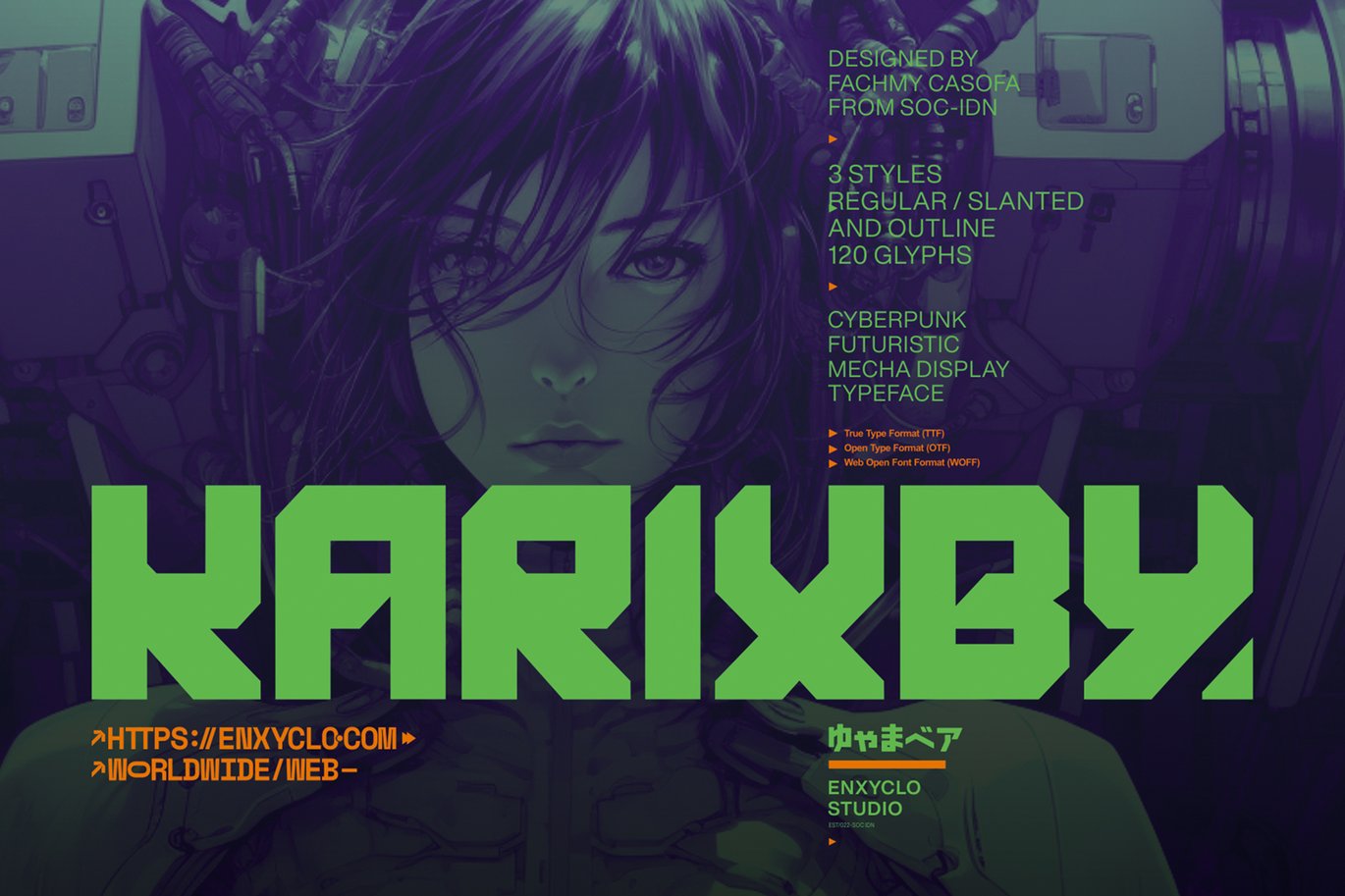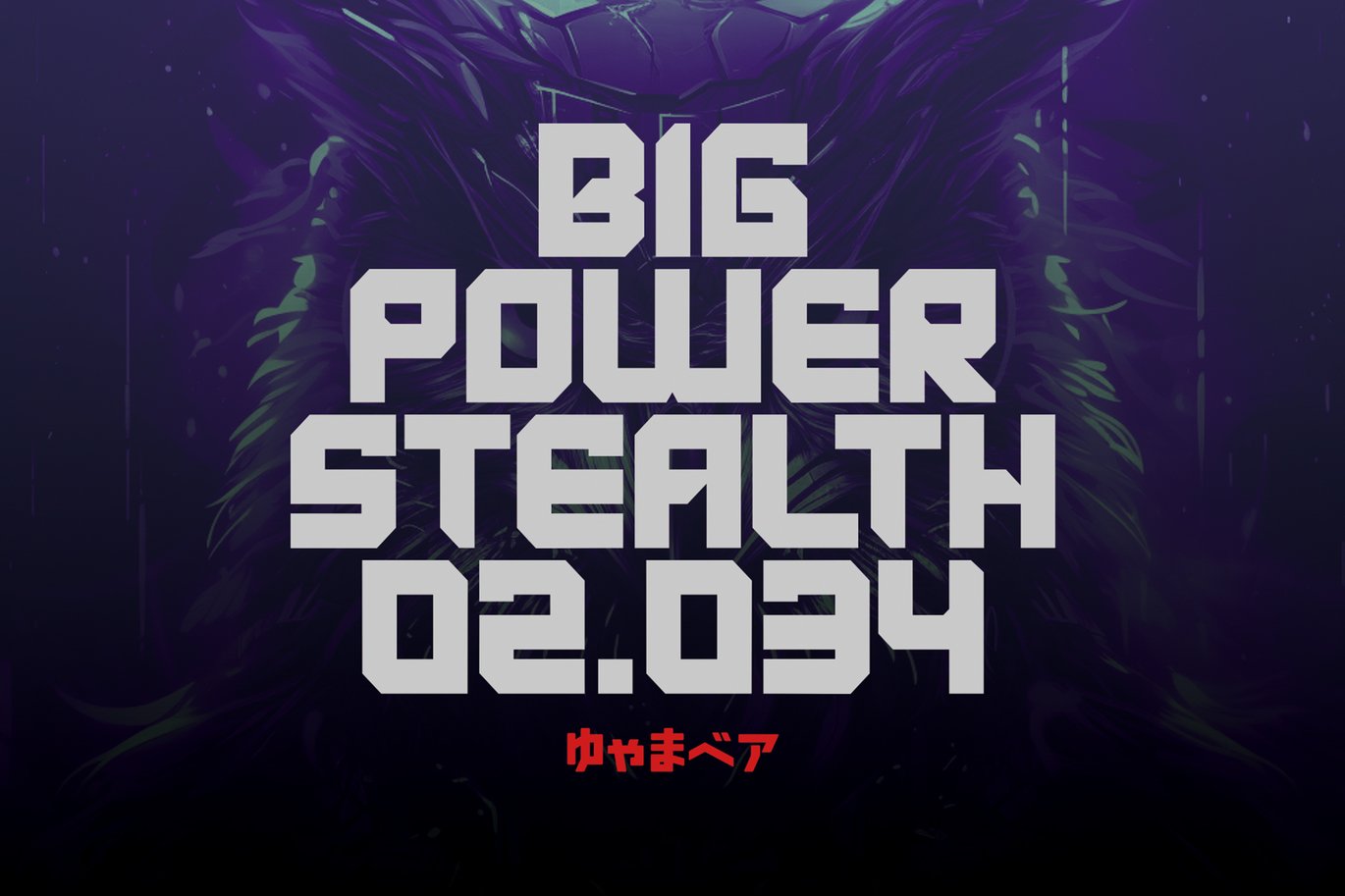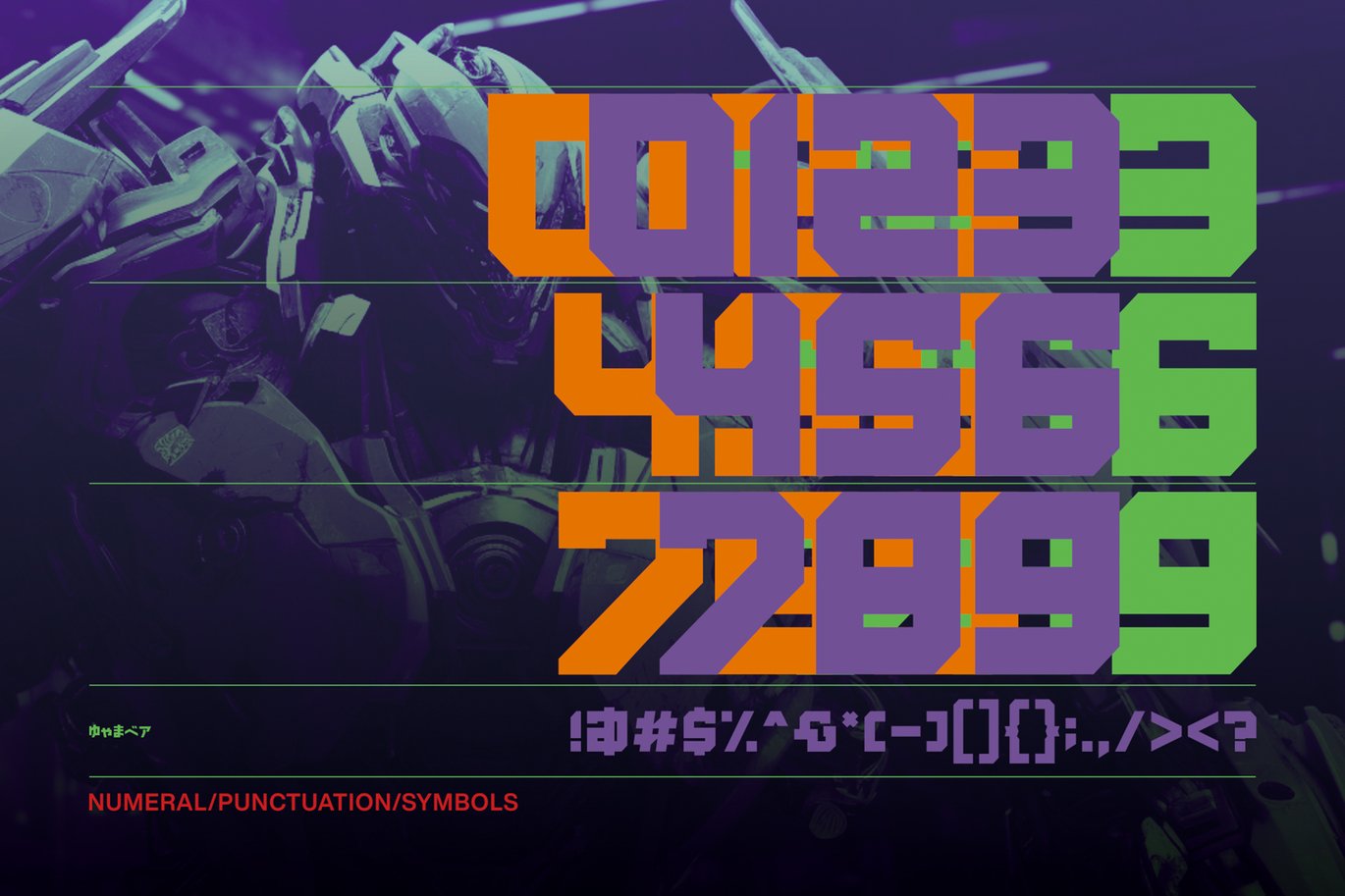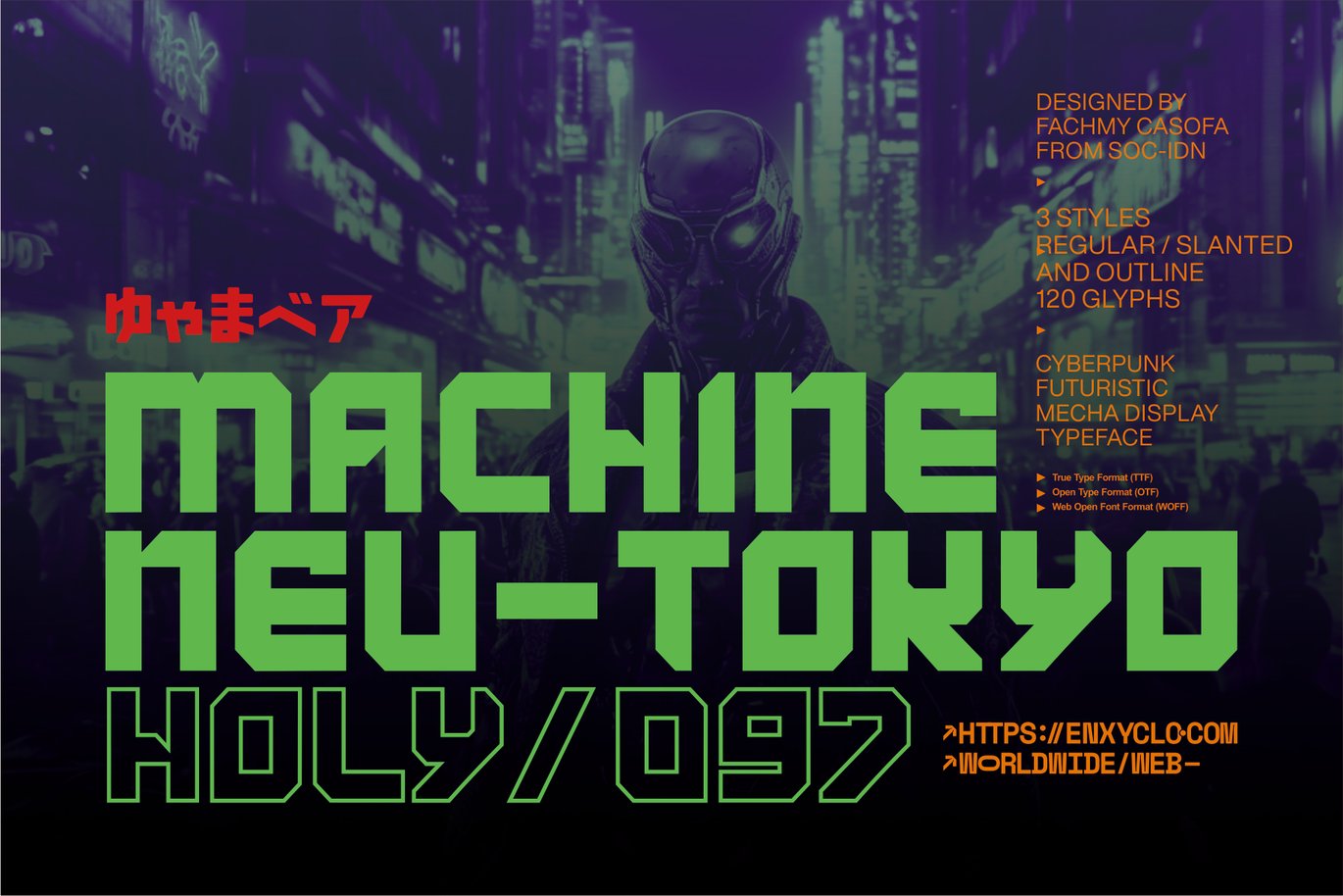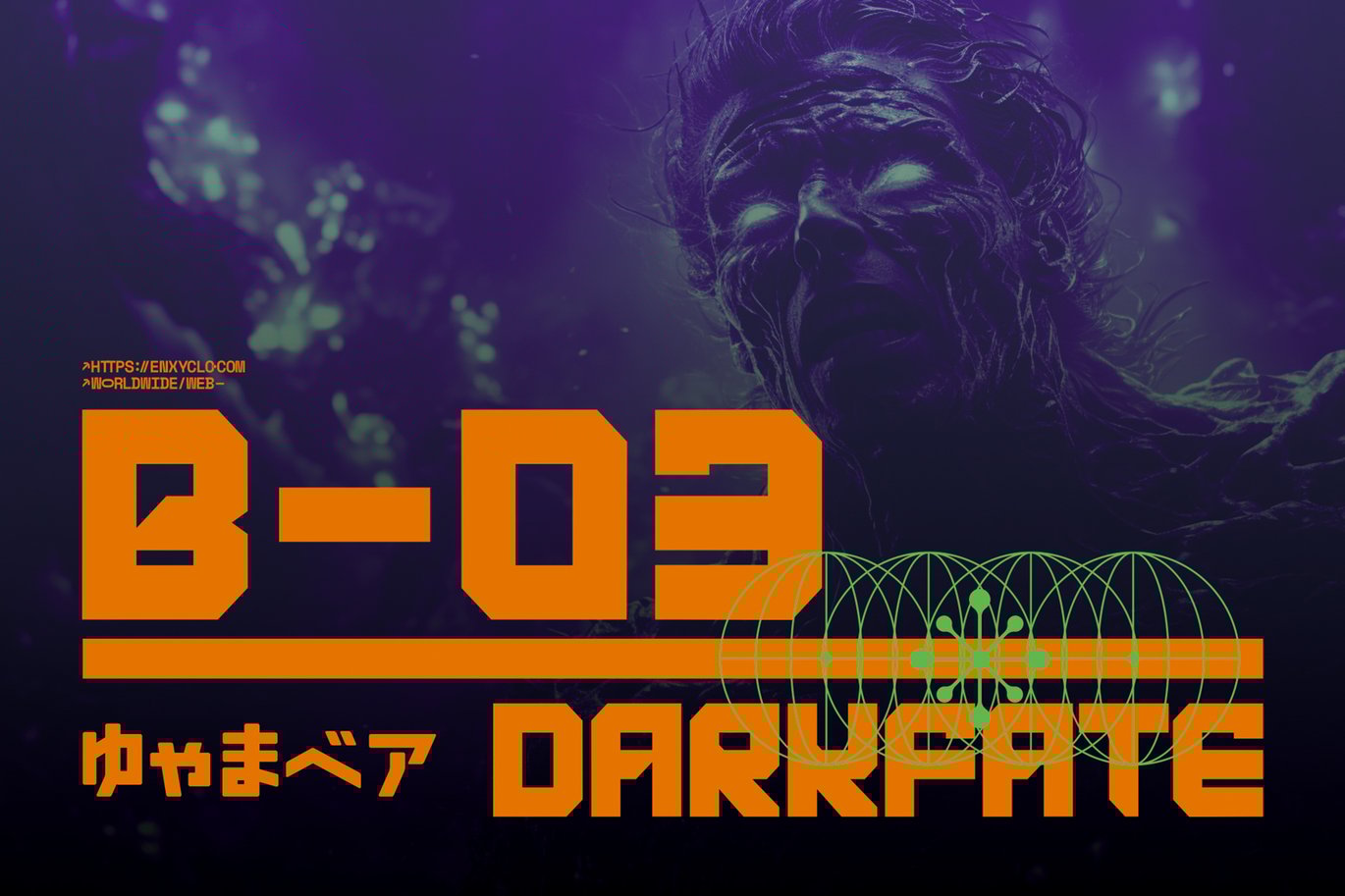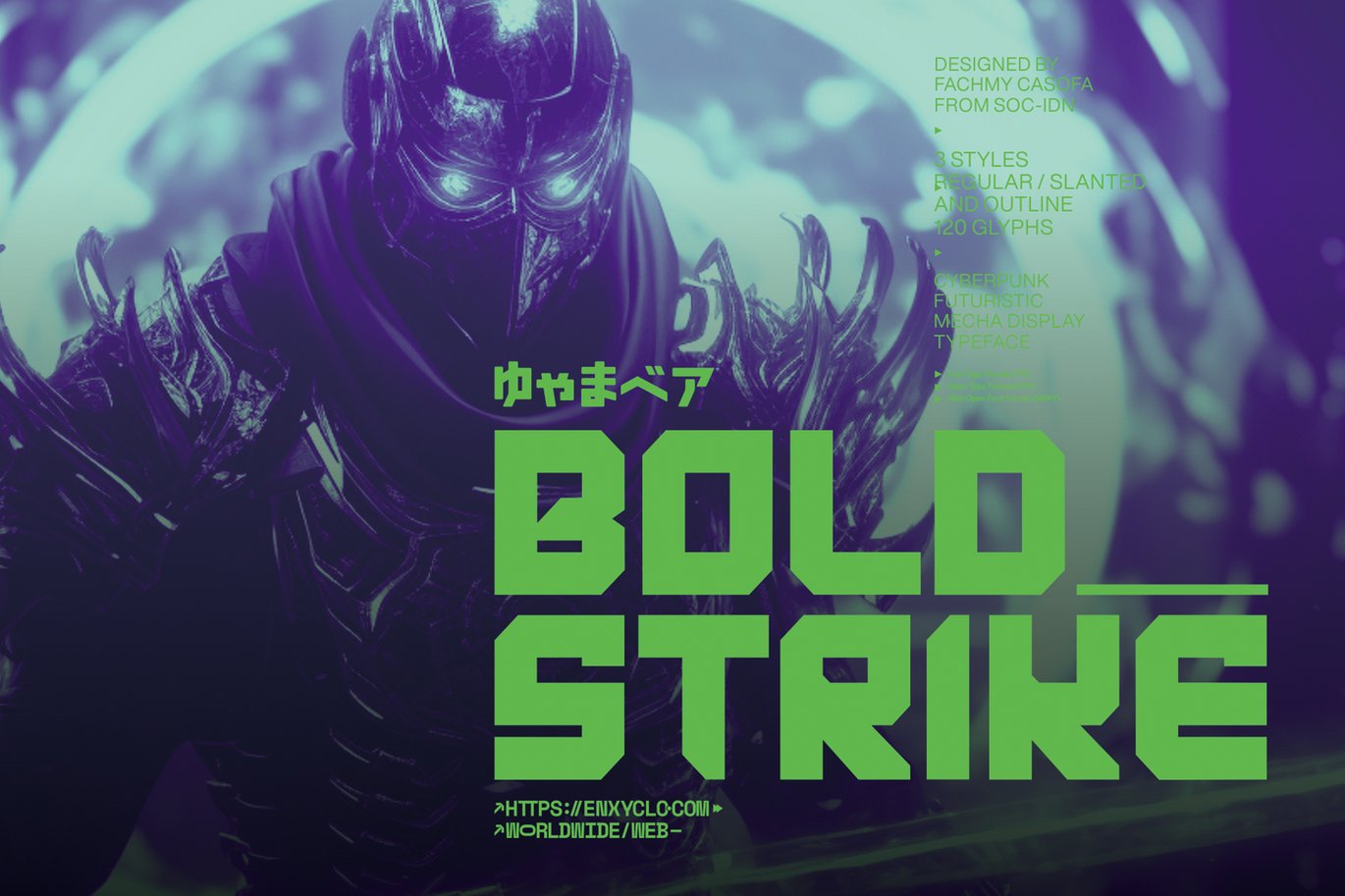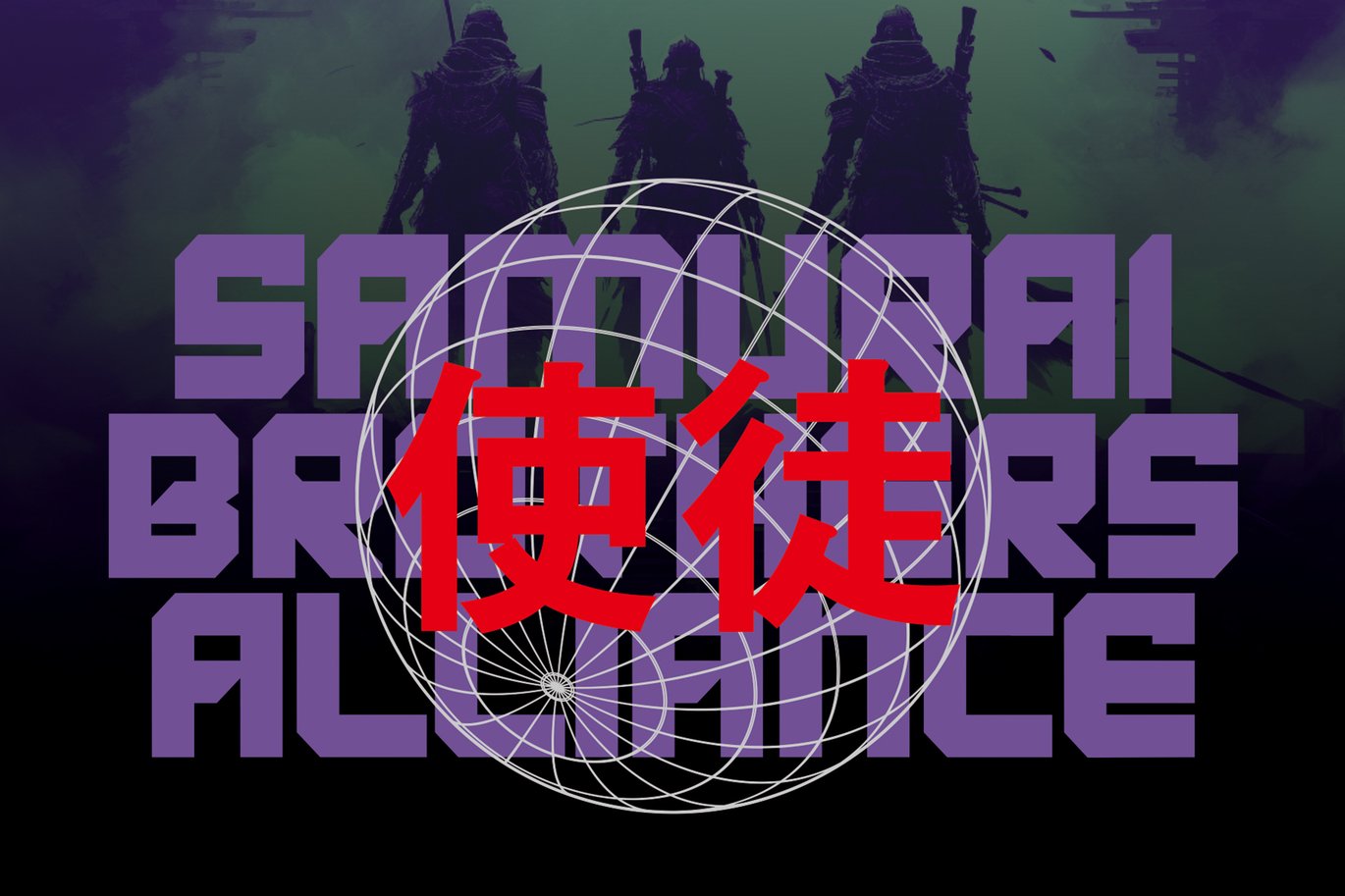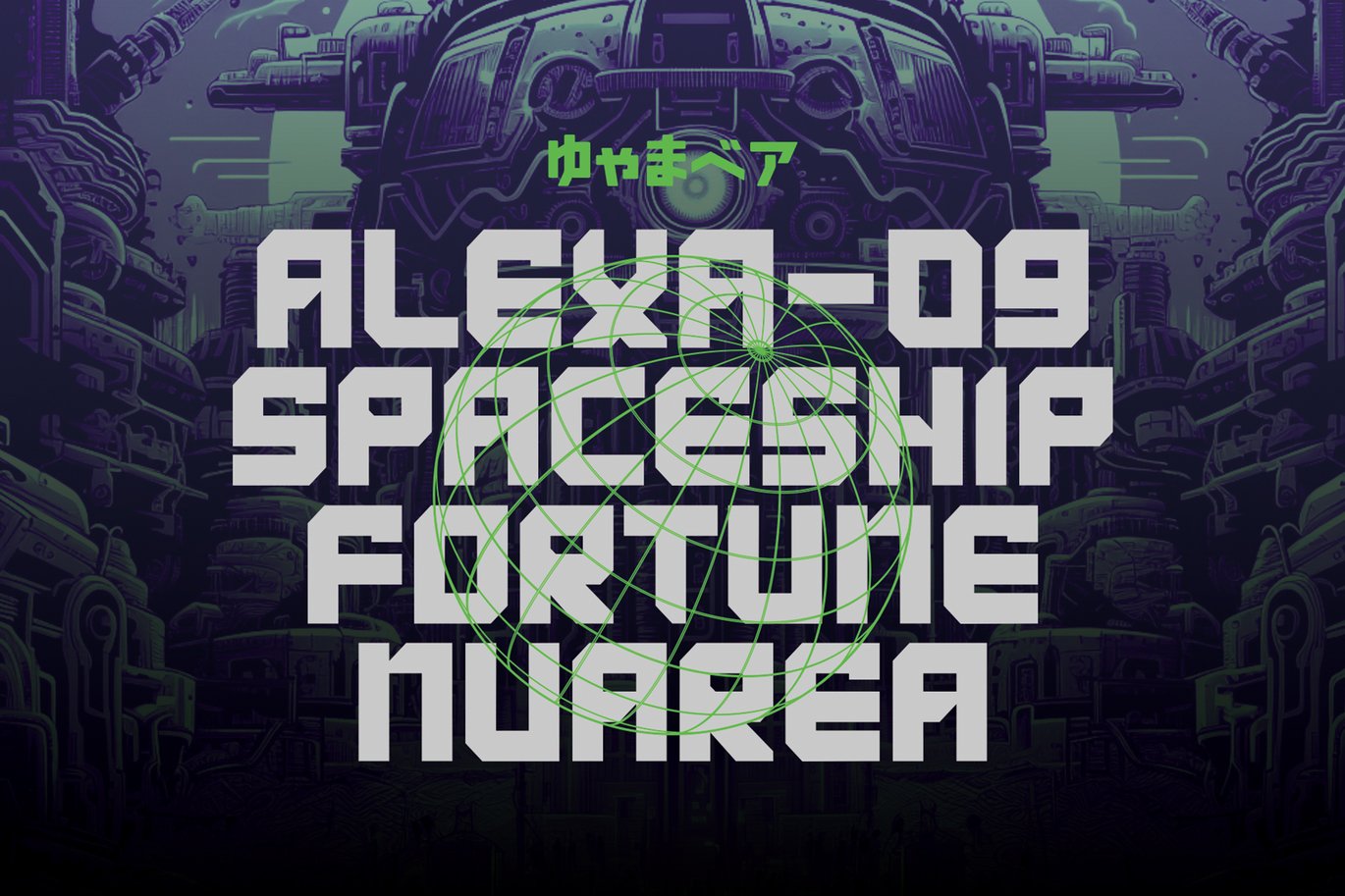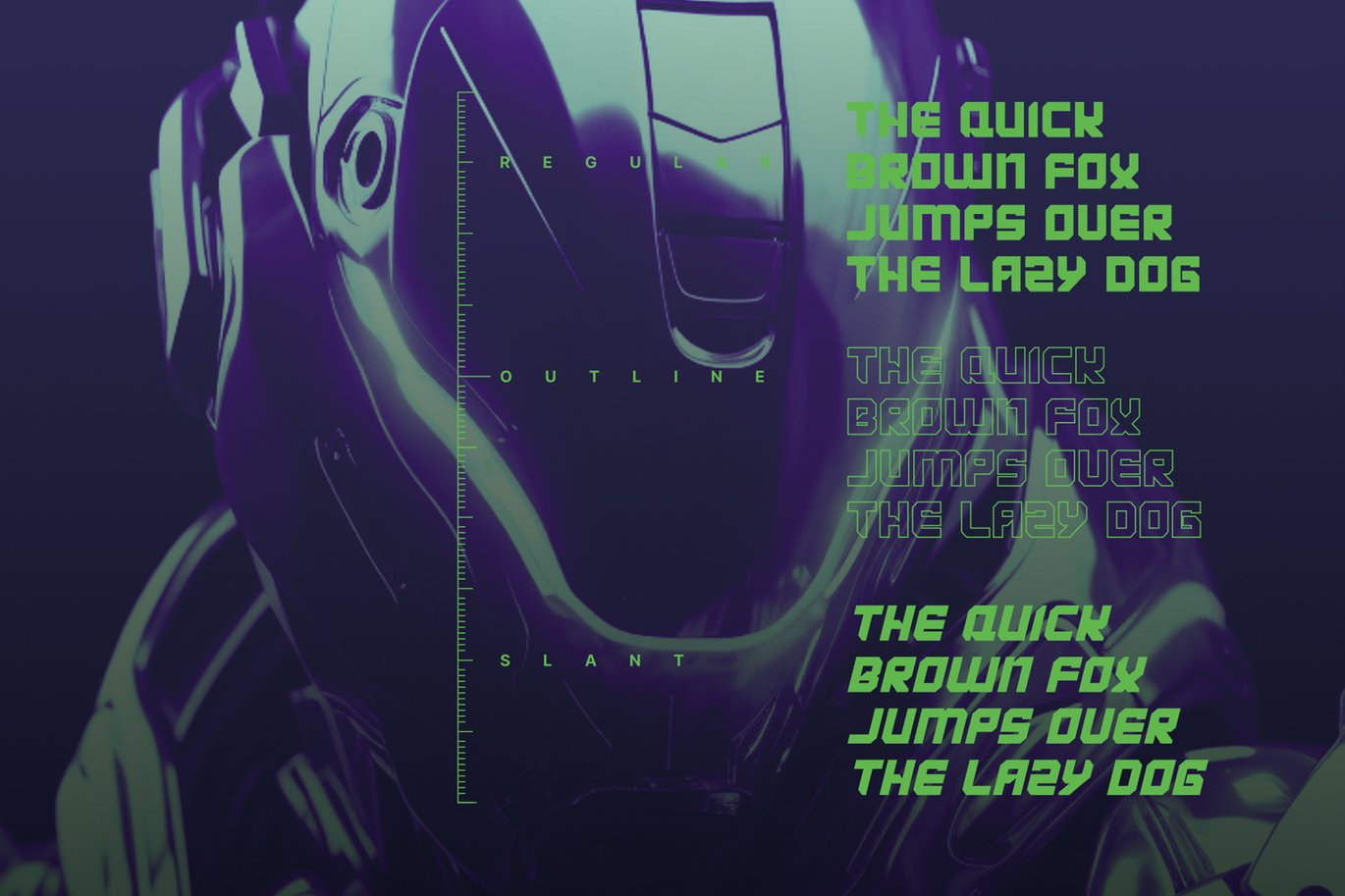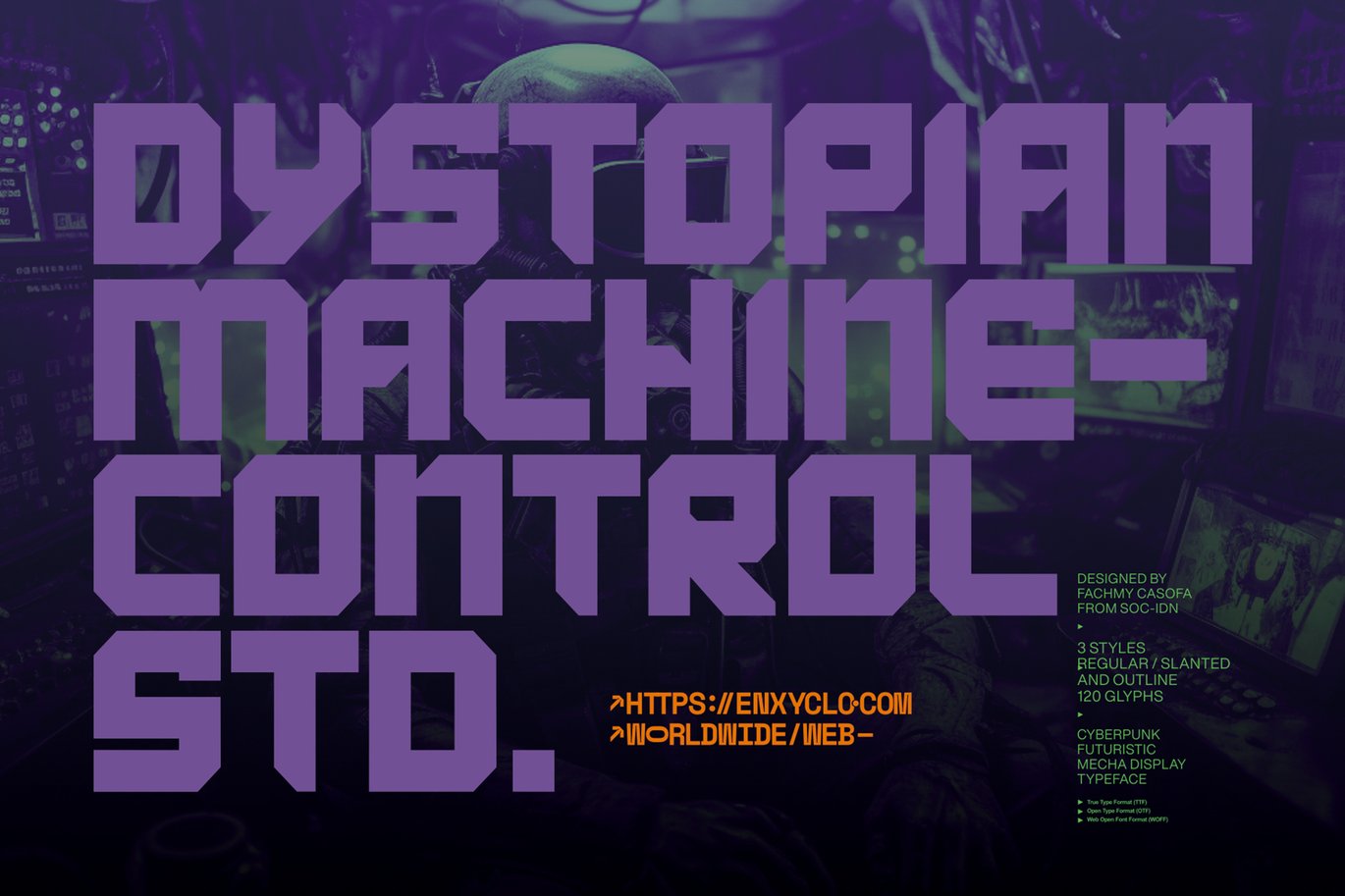
KARIXBY – Futuristic Cyberpunk Display Font
KARIXBY is cyberpunk futuristic tech display font. The design of typeface will make your project more powerful and inspiring. With this beautiful futuristic display font, absolutely you can make your project stand out from the rest. See the previews above to get some inspiration on how to use them.
- 3 Styles: Regular, Outline and Slant
- Contains 120 Glyphs for Each Style (Total 360 Glyphs)
- Uppercase, Numeral & Punctuation